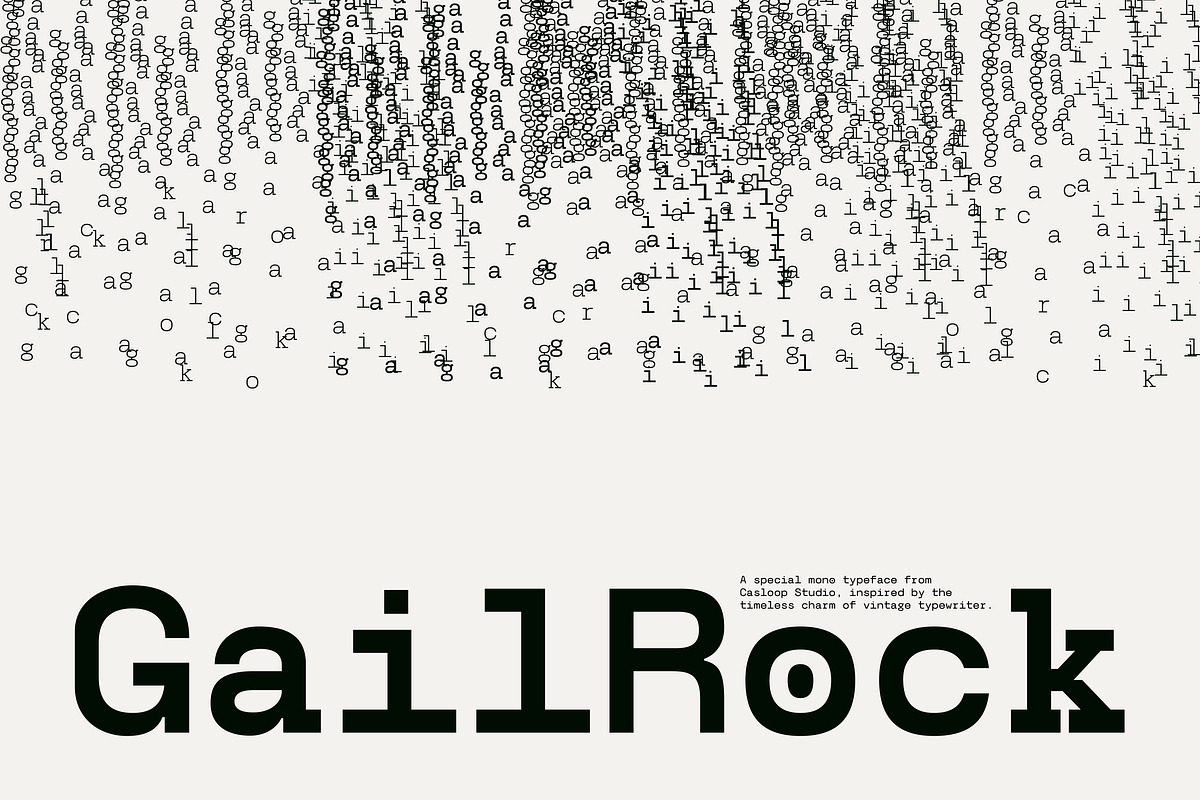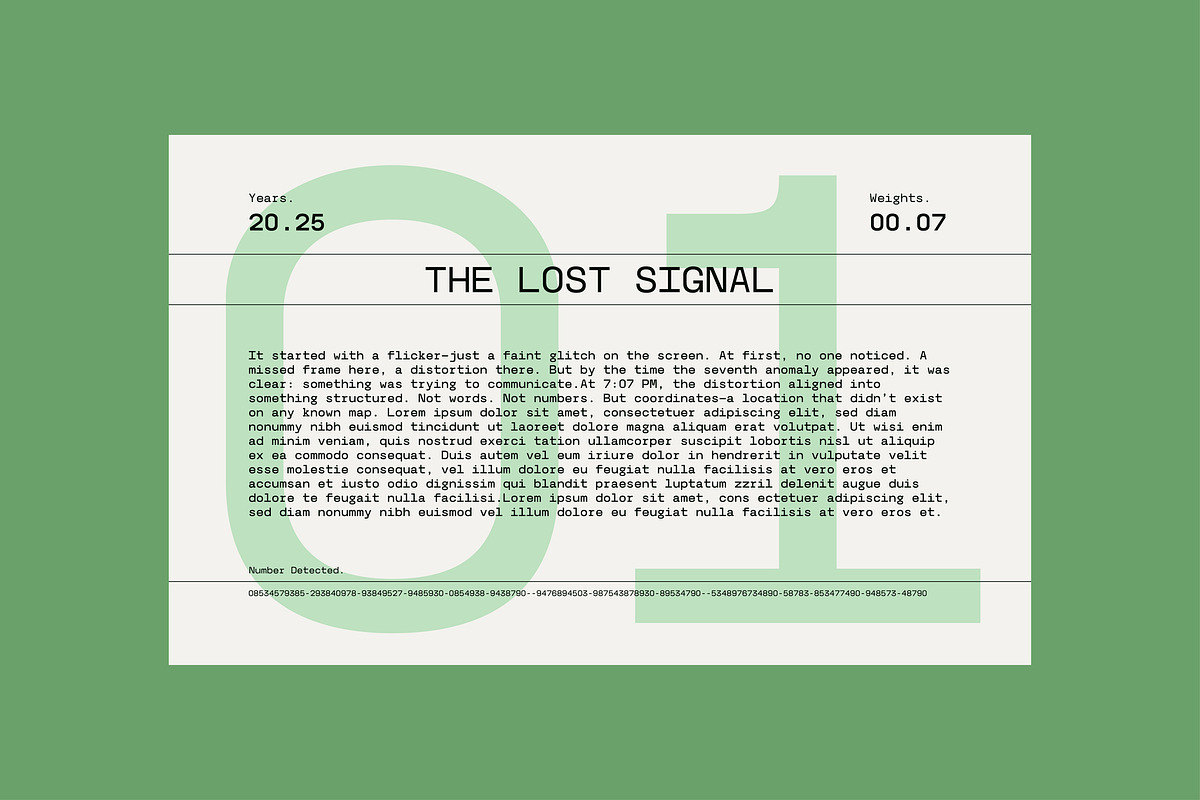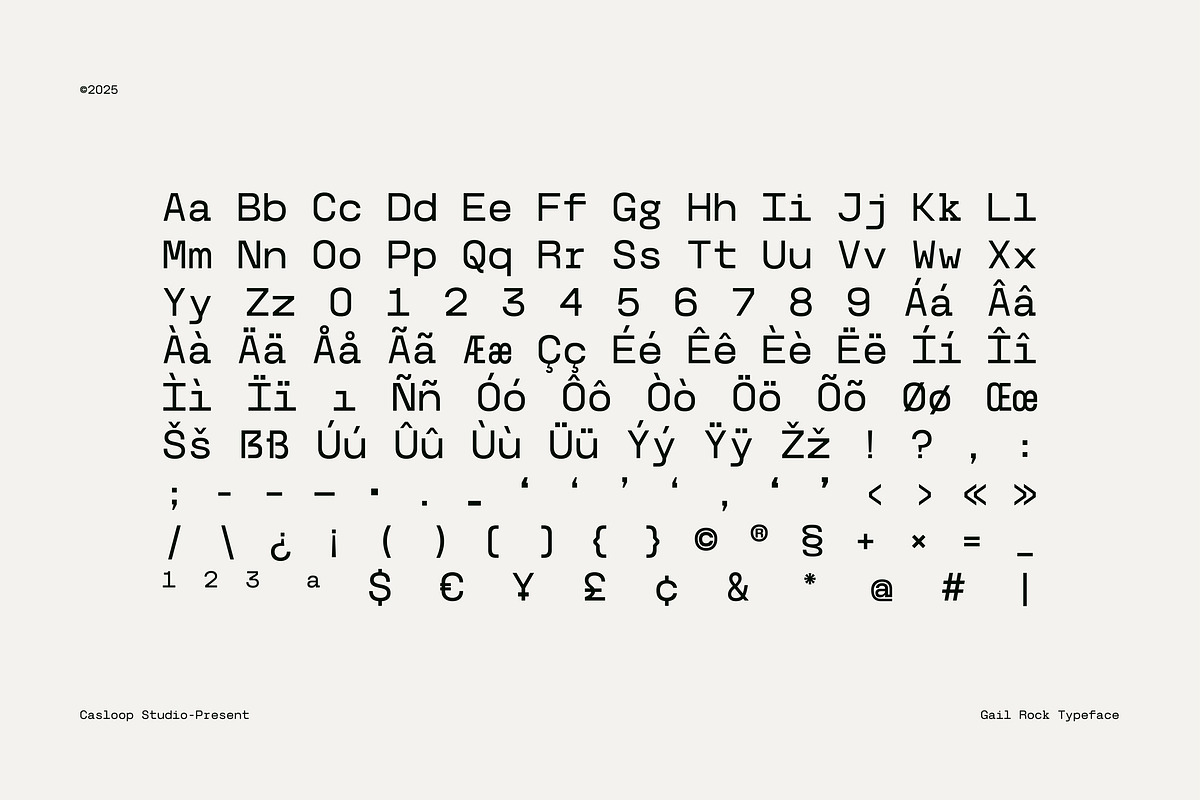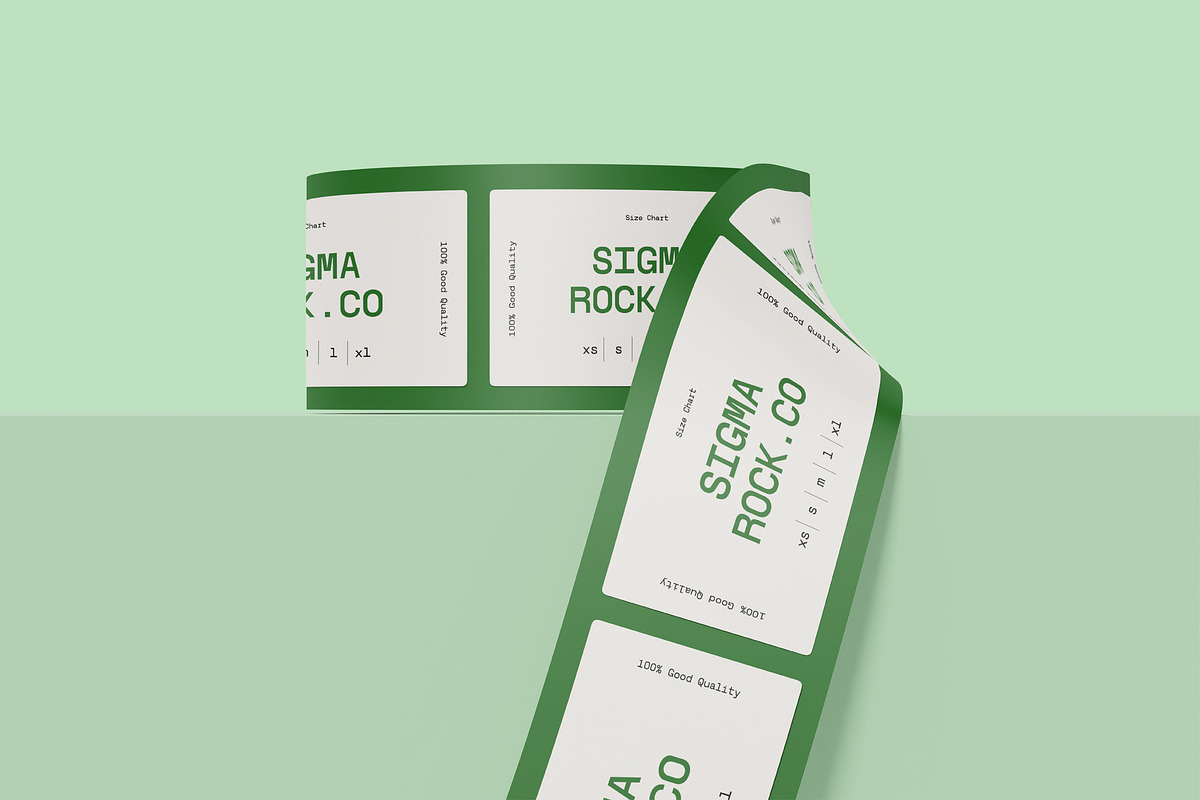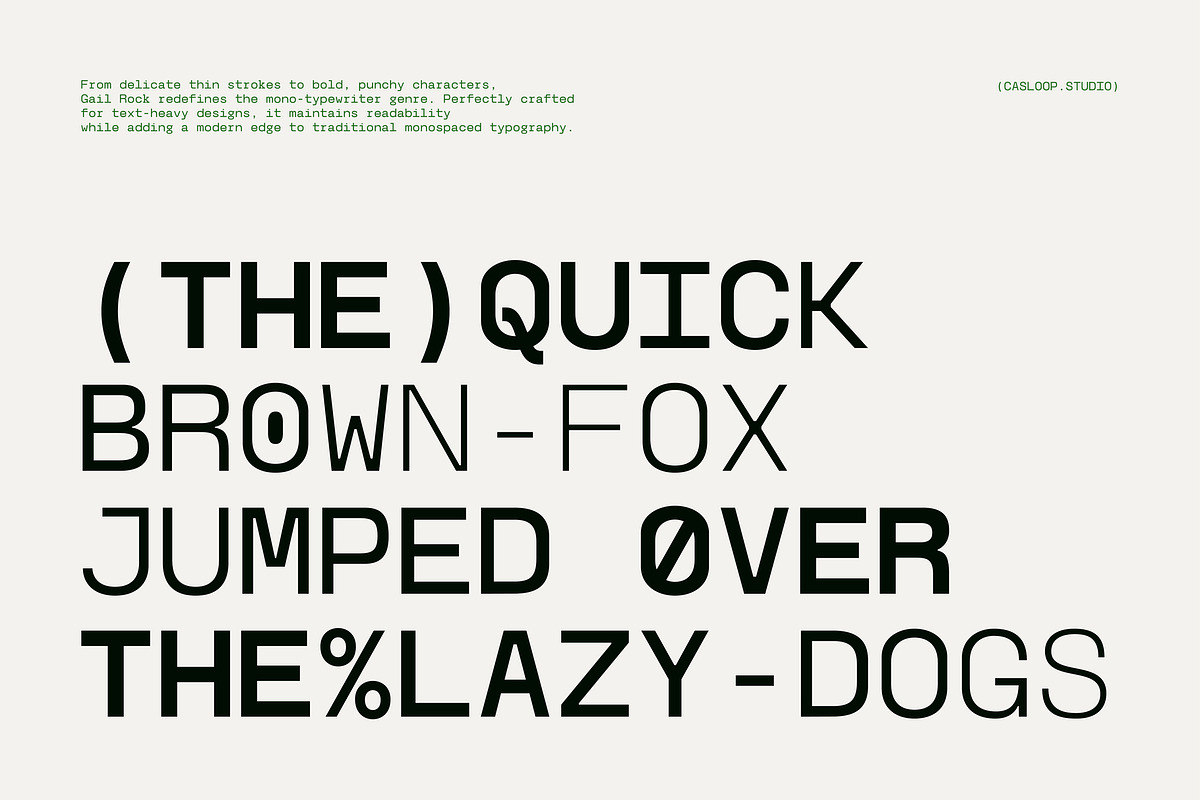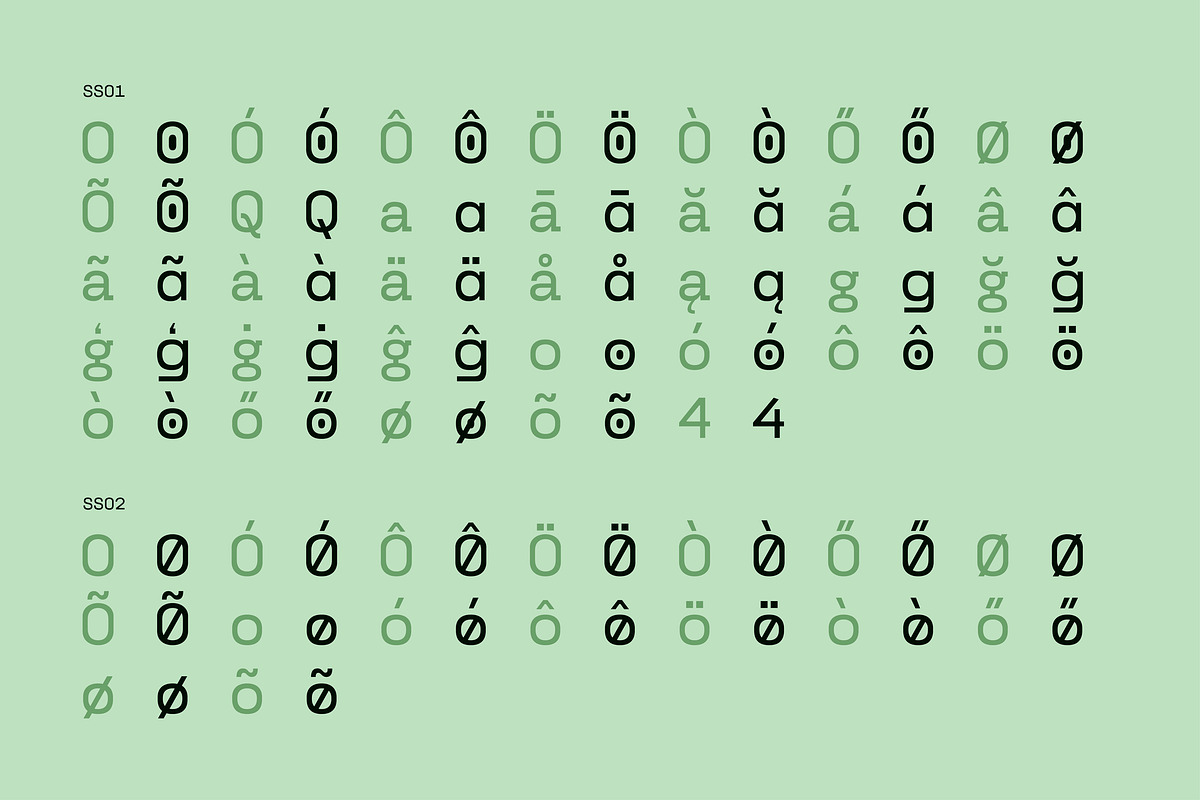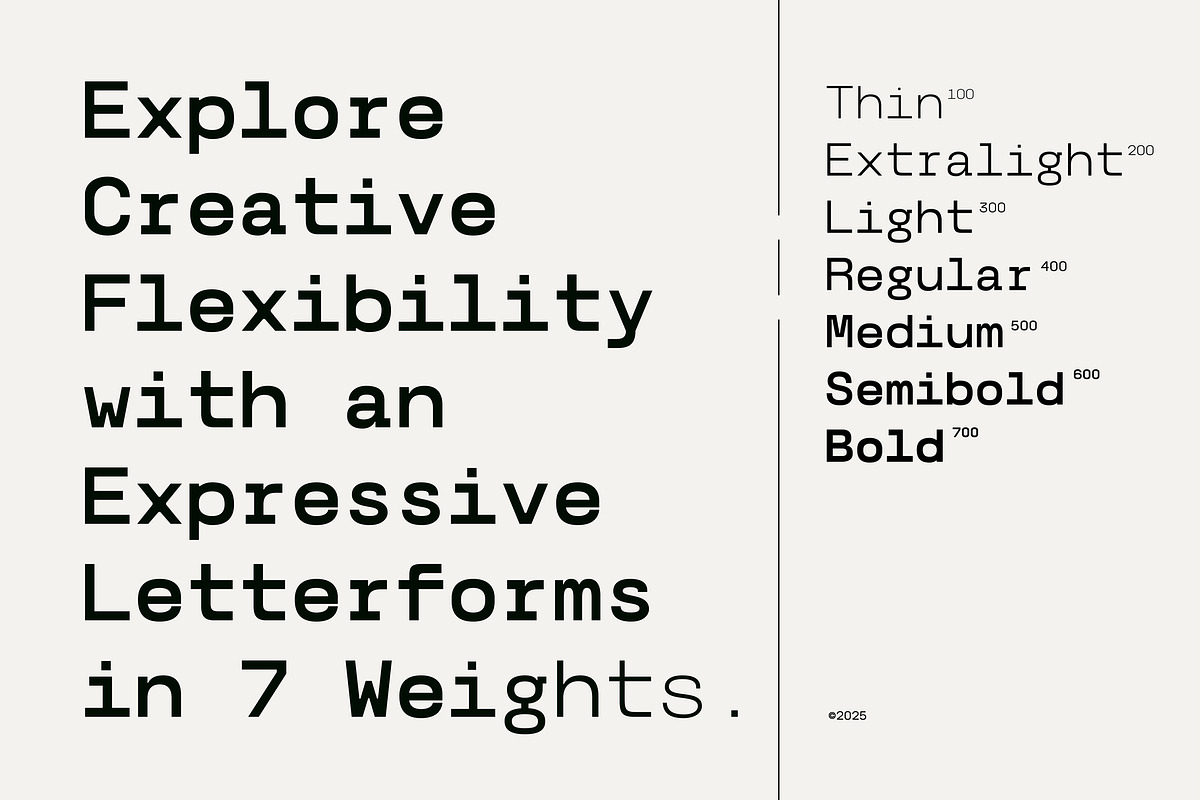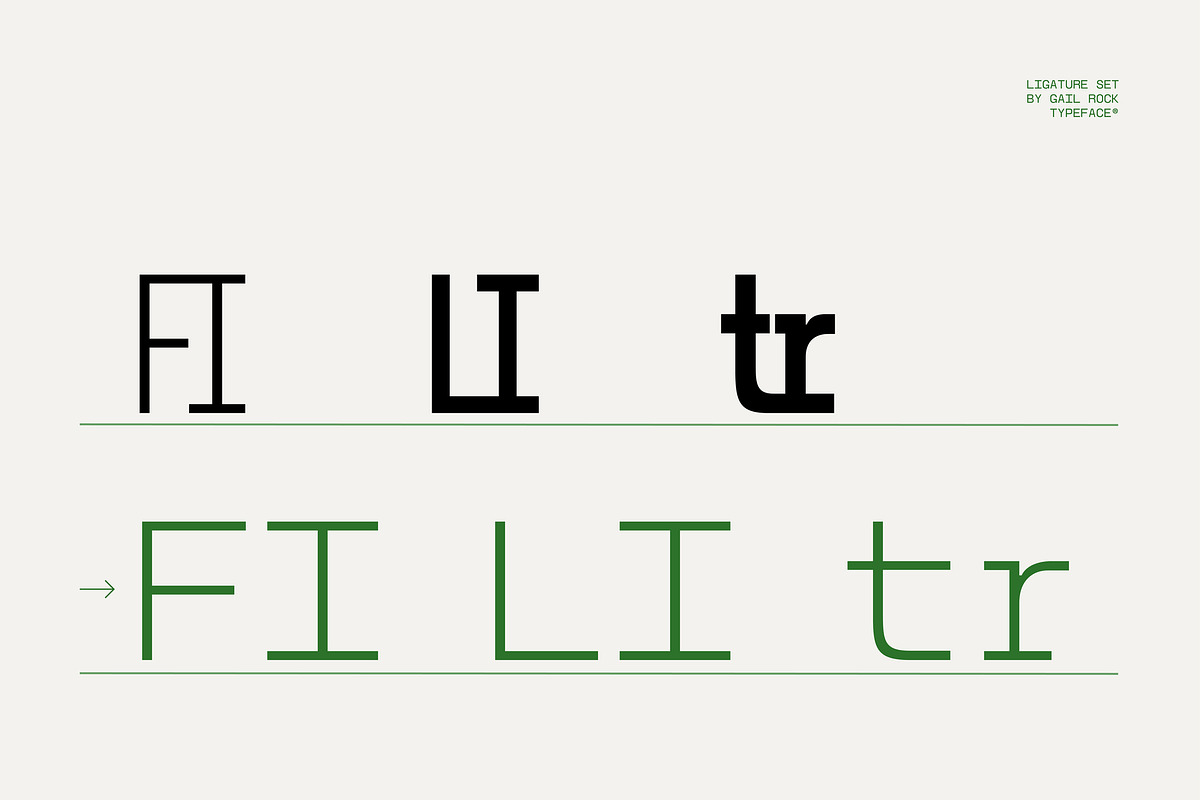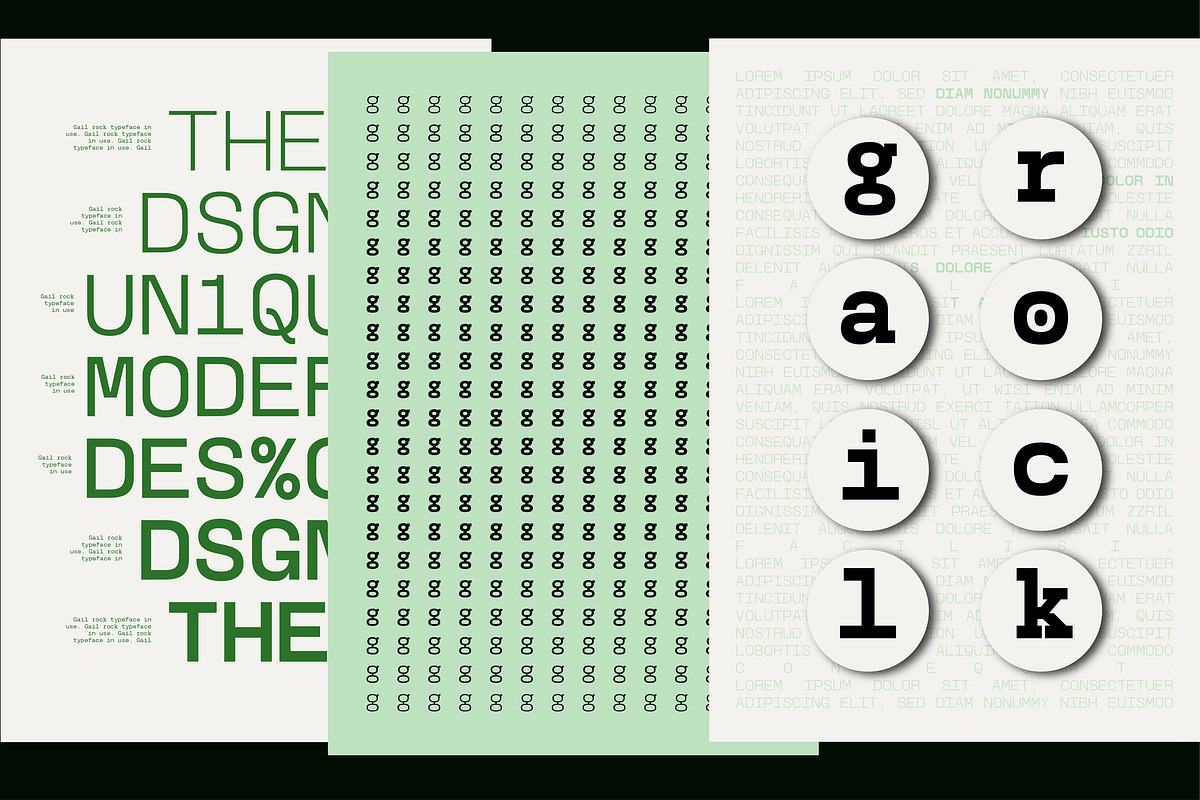
Gail Rock - Typewriter Branding Font
Gail Rock: A Monospaced Love Letter to Vintage Typewriters
Gail Rock is a mono-typeface with grit, charm, and modern attitude. Inspired by the raw beauty of typewriter mechanics, this font fuses retro nostalgia with digital clarity. From precise coding blocks to editorial layouts, Gail Rock delivers solid consistency and expressive flexibility across 7 distinctive weights. Built with a modular mono structure, each letter punches through with personality—whether it’s the clack of a lowercase “g” or the crisp stroke of a capital “I”. This font is ready to rock layouts that demand clarity, control, and just the right dose of character.
Features -Monospaced structure for clean grid alignment and consistent rhythm -7 weights from Thin to Bold for full typographic expression -Unique alternate styles and stylistic sets (SS01, SS02) for layered creativity -Classic typewriter-inspired design with a contemporary twist -Ligature support for smoother flow and enhanced readability -Multilingual support with extensive accented characters -Formats: OTF, TTF, WOFF, WOFF2
Best for -Tech & coding visuals with personality -Modern editorials with a retro edge -Merchandise & label design (perfect for fashion, records, or utility brands) -Digital storytelling, zines, and screenplays -Any layout where precision meets creative grit
From analog nostalgia to sharp digital presence, Gail Rock is your go-to mono typeface for standing out with rhythm, clarity, and vintage soul. This font works seamlessly with design apps like Adobe Illustrator, Photoshop, Affinity, Corel, and even online tools like Kittl, Canva, and Artboard Studio. From Bali with love — let’s rock your layout with Gail Rock!